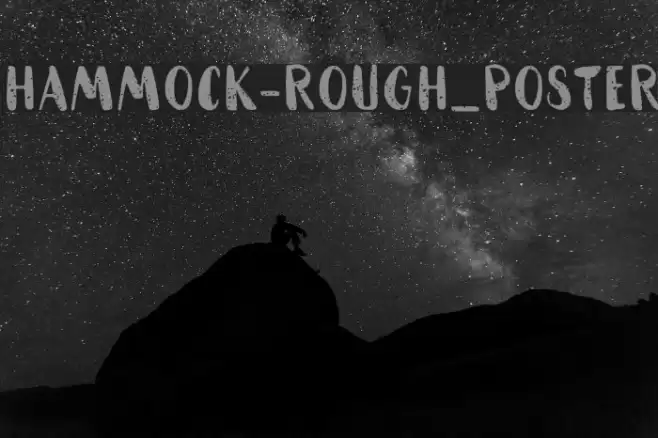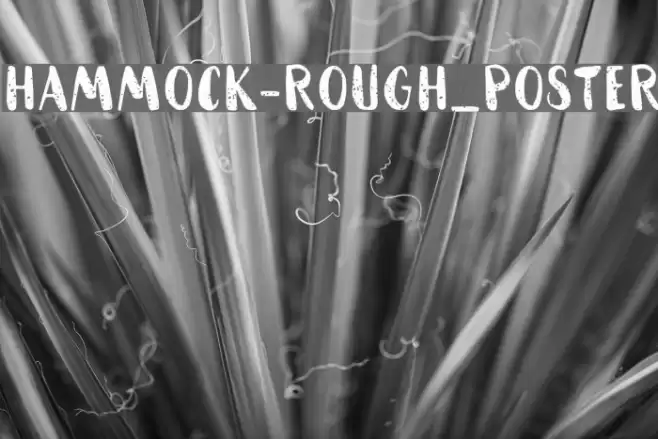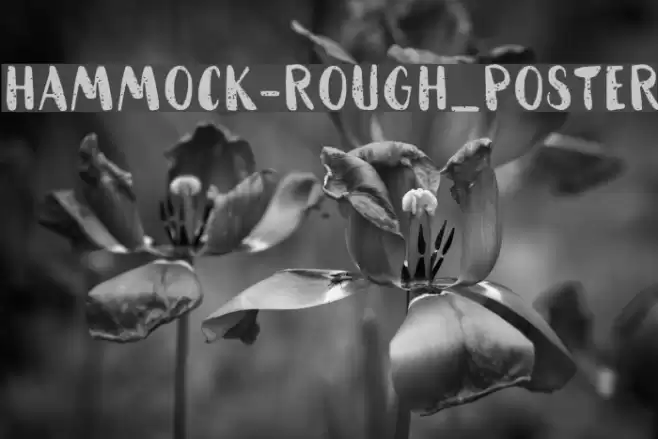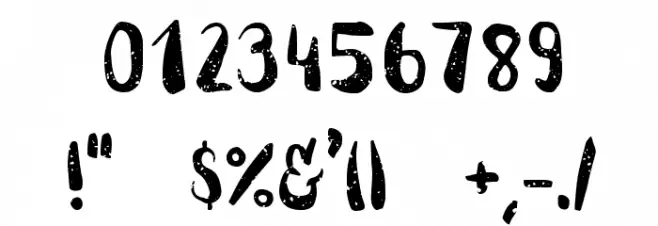
HAMMOCK-Rough_Poster Font
HAMMOCK-Rough_Poster Description
This font features a bold, rough texture that gives it a distressed, vintage appearance. The characters are irregular and slightly uneven, adding a handcrafted feel. The uppercase and lowercase letters maintain a consistent style, with thick strokes and a playful, informal vibe. The numerals and special characters follow the same aesthetic, making the font suitable for creative and artistic projects. Its unique texture and boldness make it stand out, ideal for designs that require a rustic or grunge look.
A bold, rough-textured font with a vintage, handcrafted feel from Uncategorized fonts.
- Proposed Projects: Ideal for posters, album covers, branding, and any design requiring a rustic or grunge aesthetic.
- Overall Style: Vintage